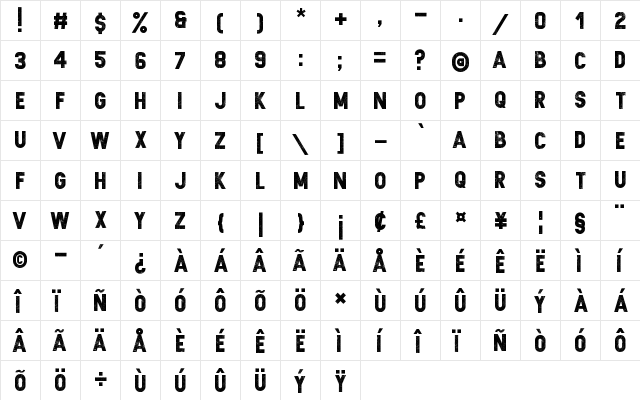
Zilap Sleep Grunge
| Style | Grunge |
| Foundry | Zilap Estudio |
| Designer | Juan Navarro |
Design Context for Zilap Sleep Typeface
Zilap Sleep embraces imperfection — its rough, textured character adds raw authenticity to designs that want to feel lived-in and unconventional.
Suited to punk-influenced zines, underground music branding, streetwear, and raw, anti-corporate design.
Pro Tip: Pair Zilap Sleep with intentionally raw or lo-fi design elements. Fighting against it with overly polished surroundings will undermine its personality.